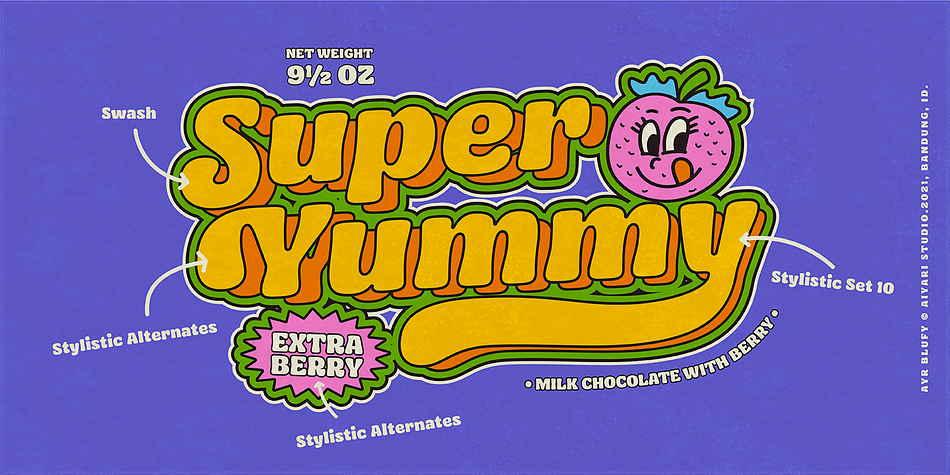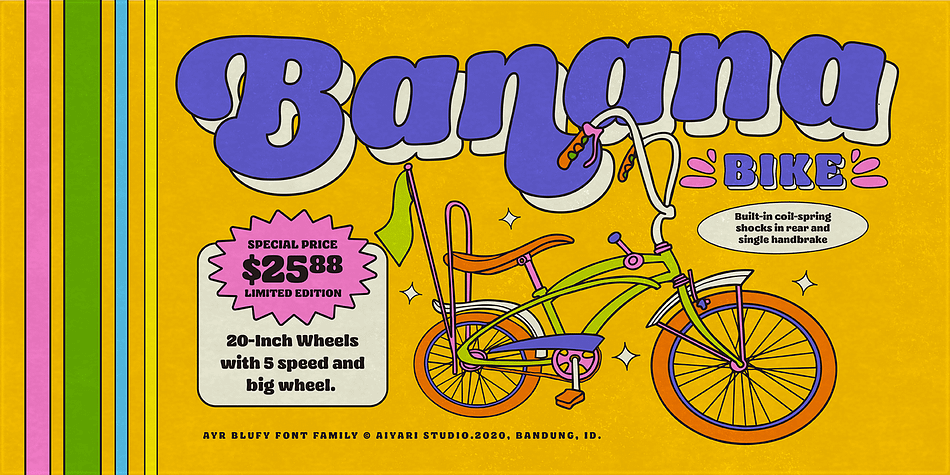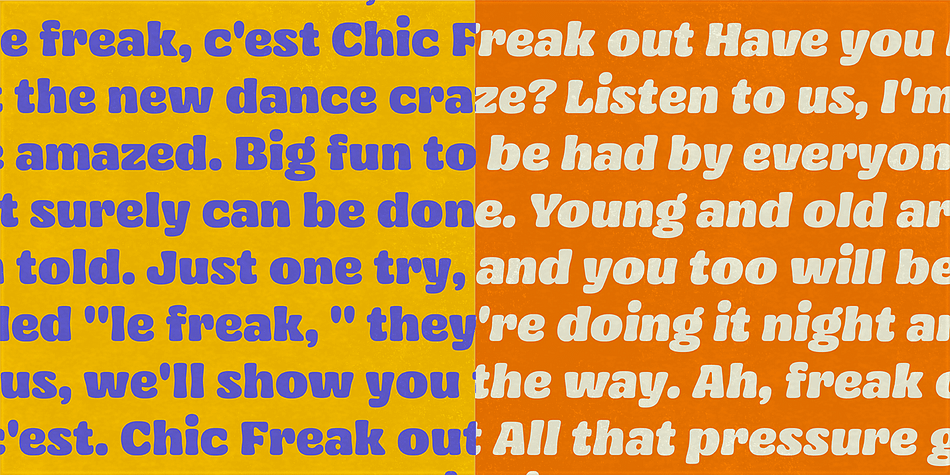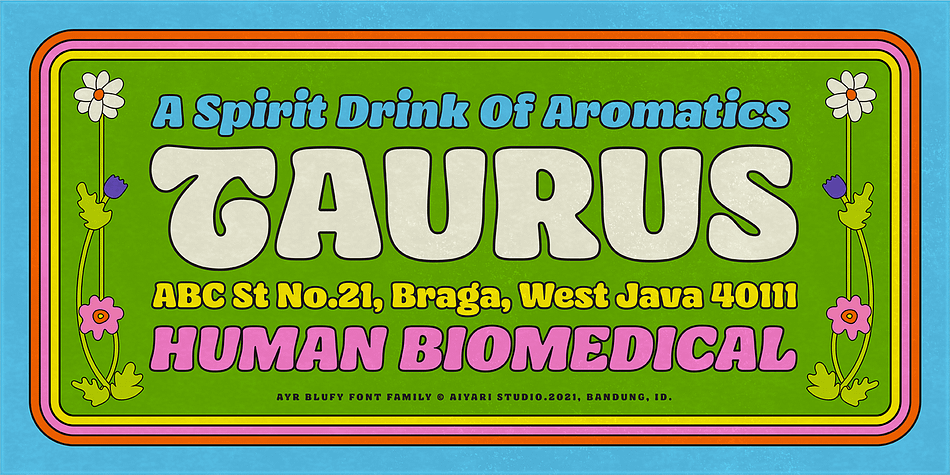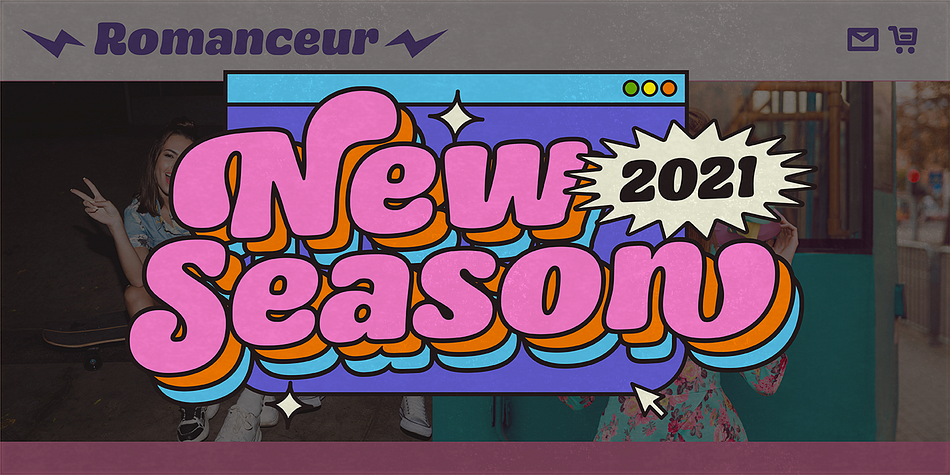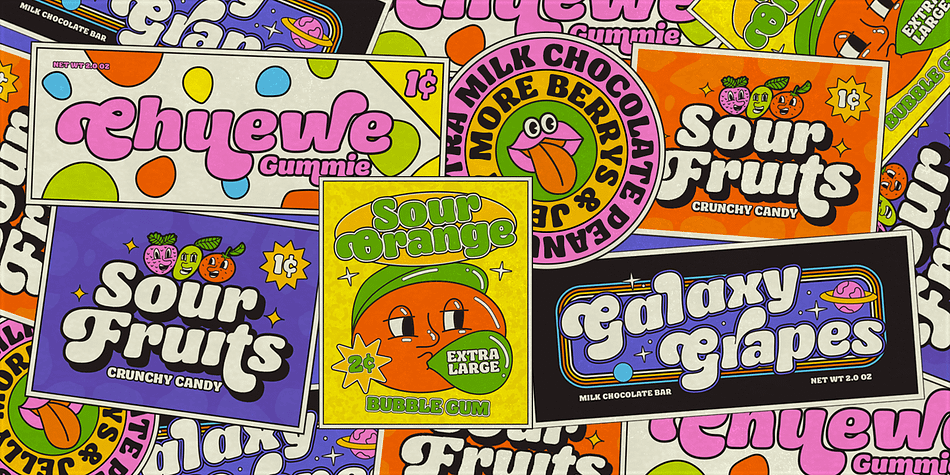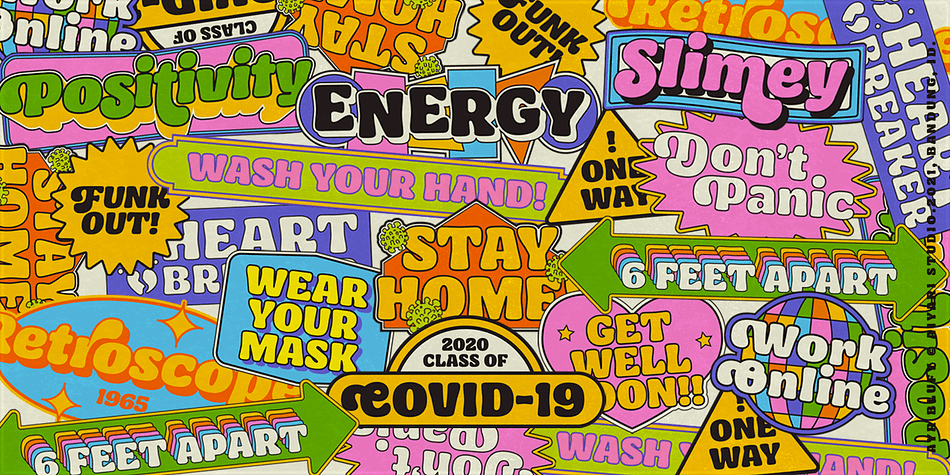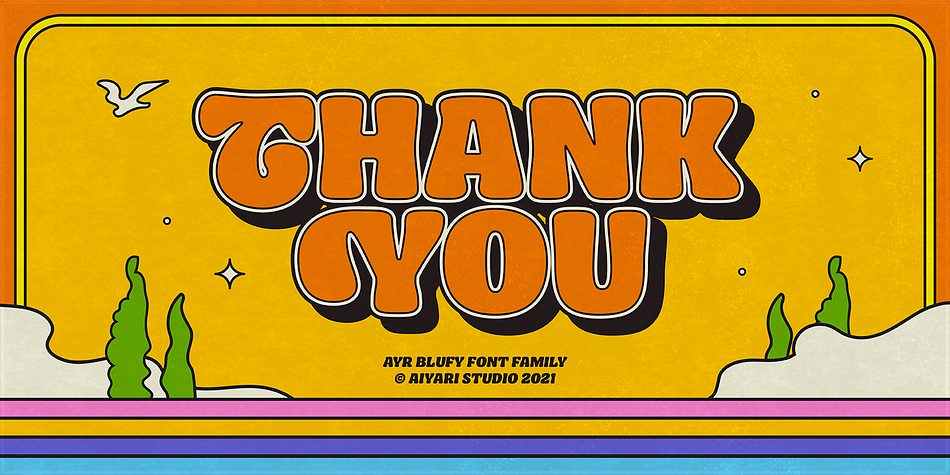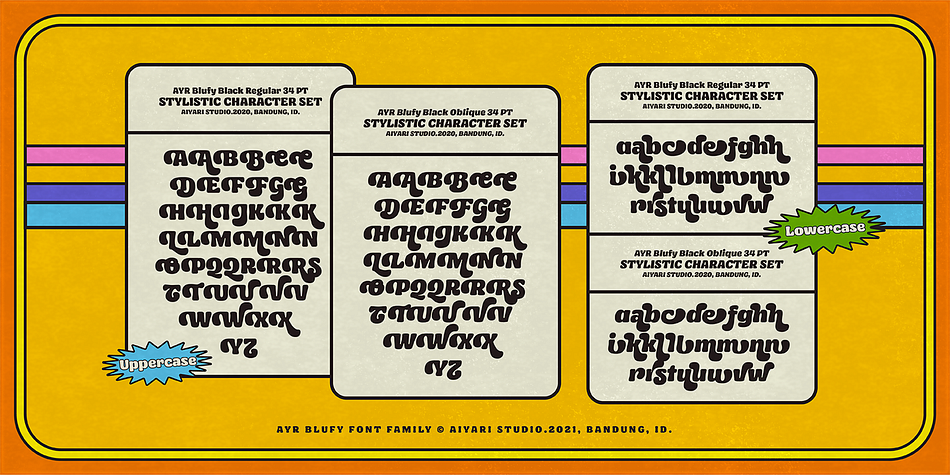
Designed by Ricky Rinaldi, Blufy is a display sans and retro font family. This typeface has two styles and was published by Aiyari.
Introducing a new softest retro font family called Blufy. Heavy influence from Cooper black typeface and ballon hand lettering from 60s - 70s era. Blufy Font Family contains 2 style regular and oblique. It comes with Stylistic Alternate, ligature, Stylistic Set 01-10, & swash.
Ayr Blufy Font Family is best used for headings, logotype, quotes, apparel design, invitation, poster, flyers, greeting cards, packaging, book cover, printed quotes, cover album, movie, & etc